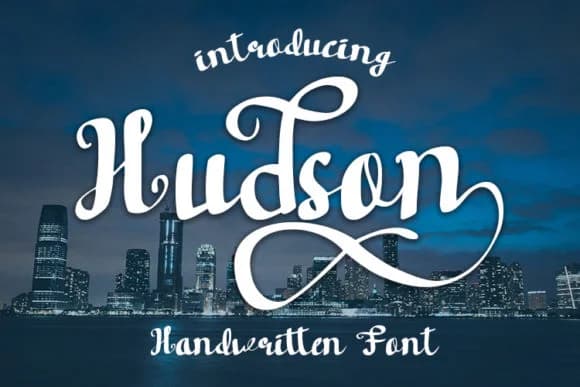
Hudson Font by wny79 is a handwritten script that captures authentic hand-lettered character with refined elegance. The font strikes a compelling balance between organic, natural strokes and polished sophistication, making it versatile enough for multiple design contexts. Whether you're creating romantic wedding invitation suites, designing custom greeting cards with genuine personality, developing luxury product labels for boutique brands, or crafting hand-lettered storefront signage, Hudson delivers visual impact with remarkable charm that feels intentional rather than casual. The script's flowing letterforms work beautifully across both print and digital applications. Its distinctive handwritten aesthetic proves especially effective for branding projects where authenticity and visual personality matter most, think custom logo lettering for creative studios, personalized stationery sets for special occasions, DIY craft signage that captures attention, or social media graphics that stand out. The consistent, confident character structure ensures strong legibility even at smaller sizes while maintaining the organic, approachable appeal that makes handwritten typefaces so highly valued in contemporary design. Hudson brings professional polish and expressive personality to any project. Discover Hudson Font on Creative Fabrica and add this distinctive handwritten script to your design collection.
Hudson Font by wny79 Font is a script font that shines as a display or heading face. Pair it with a clean sans-serif or serif font for body text β the contrast creates a clear hierarchy while the two styles stay balanced and easy to read.